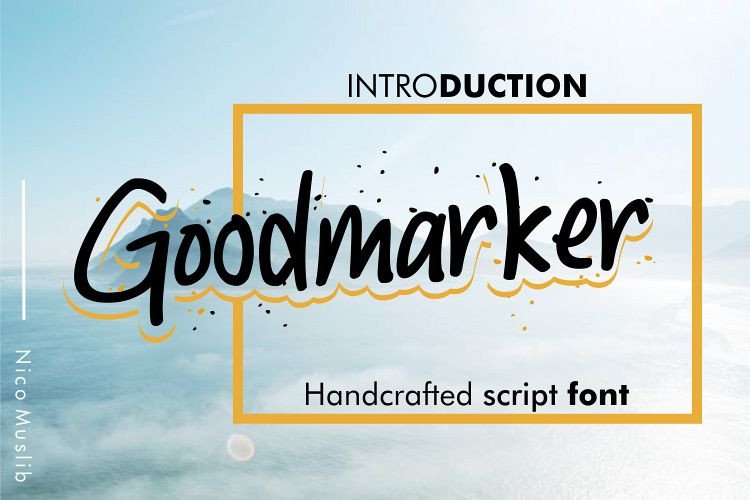
Goodmarket Handwritten Font
Meet Goodmarker handwritten font ! This scripty-serif font is bouncy, charming and perfect for many design projects! I’ve made this font as smooth as possible, reducing the amount of nodes in each glyph to ensure optimal cutting with Cricut, Silhouette or other craft machines.